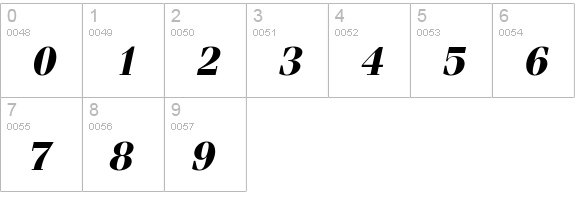
Compendium SSi Bold Italic Font Details
Compendium SSi Bold Italic is a strong, high-contrast, italic variant in the Compendium typeface family \xE2\x80\x94 well suited to headlines, attention-grabbing titles, and strong calls-to-action.